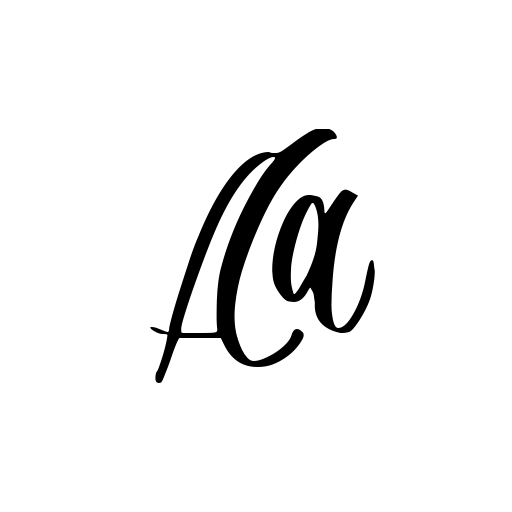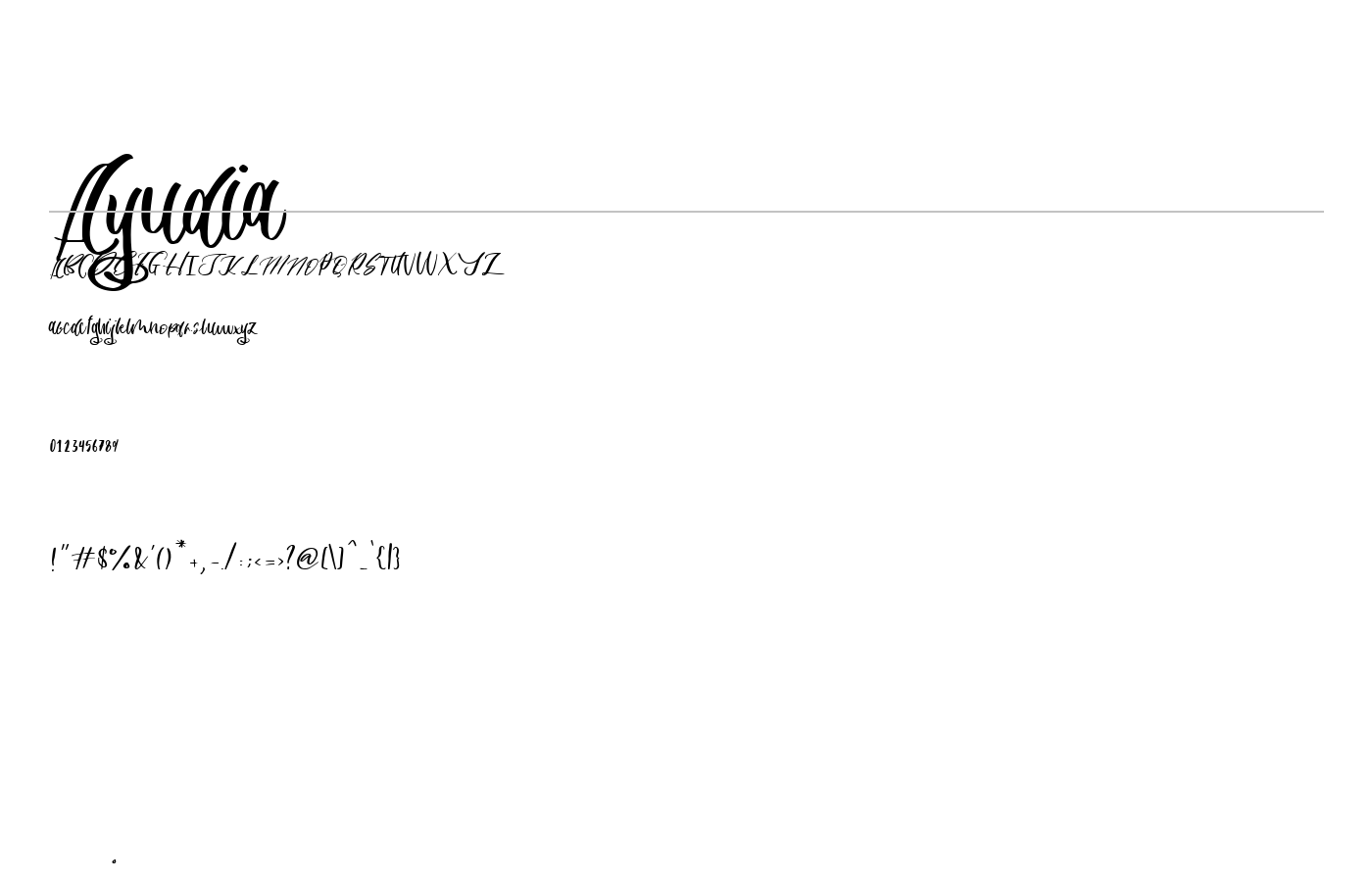
Ayudia is a delicate and elegant script font featuring fine, flowing strokes and graceful curves that give it a handwritten, calligraphic feel. Its slender, slightly condensed letterforms with decorative swashes make it perfect for sophisticated branding, invitations, and stylish headlines where a personal yet refined touch is desired. This font works best in decorative contexts rather than body text due to its intricate and ornamental design.
Ayudia Font
About Ayudia Font